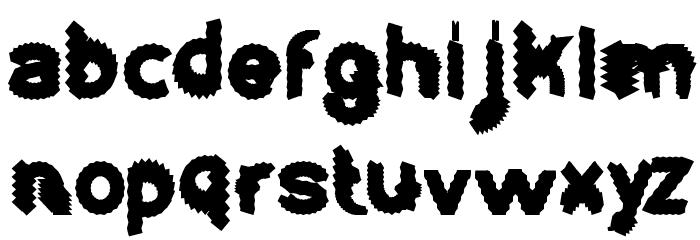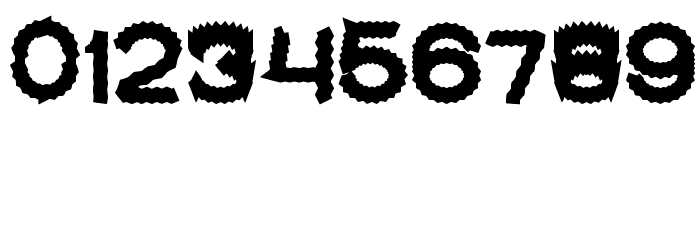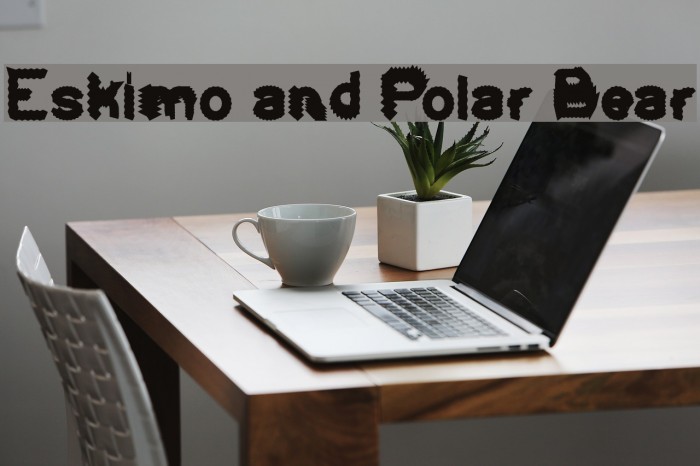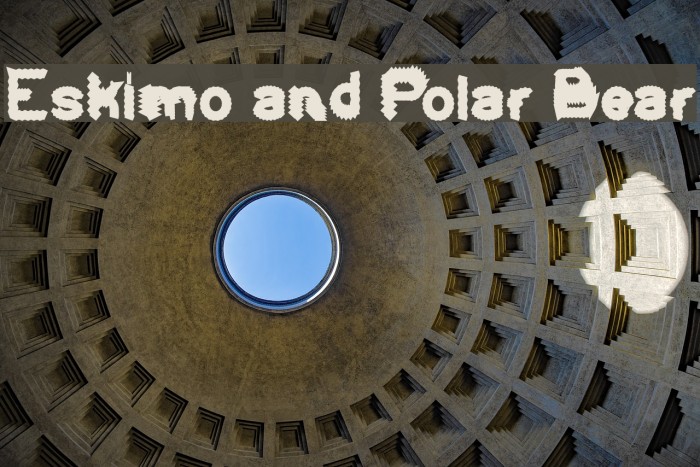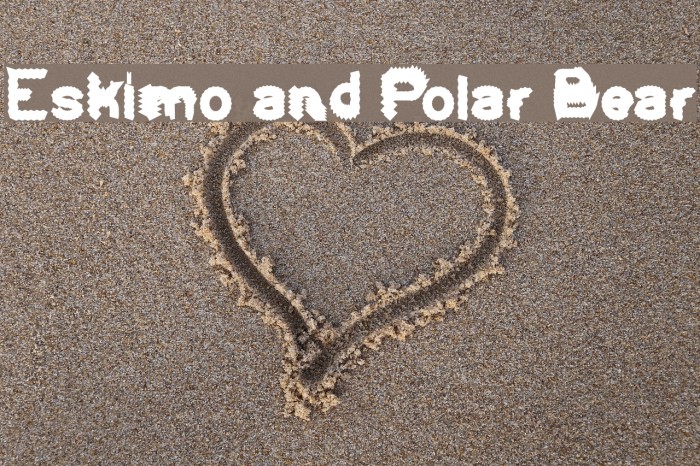
Eskimo and Polar Bear Font
This font features a playful and jagged design, reminiscent of icy landscapes and rugged terrains. Each character is crafted with a unique texture that mimics the appearance of snow or ice, giving it a distinct and adventurous feel. The uppercase and lowercase letters maintain a consistent style, with sharp edges and irregular outlines that create a dynamic visual impact. Numbers and special characters follow the same design principles, ensuring uniformity across all elements. The font's bold and striking appearance makes it ideal for projects that require a touch of whimsy and creativity.
A playful, jagged font with an icy, adventurous feel.
- Proposed Projects: Ideal for winter-themed posters, children's book covers, and playful branding.